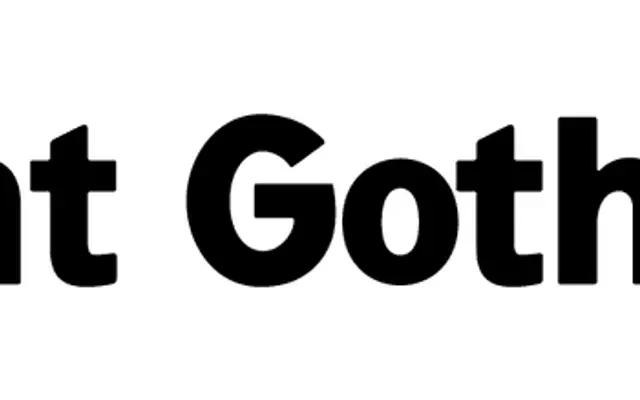
Fairmount Gothic Round
A rounded grotesque drawn from sign painter lettering and mid-century American consumer product design, with uniformly rounded corners on every junction.
Every corner and meeting point across the letterforms has been rounded, eliminating any sharp junction throughout the face. The proportions and weight reference utilitarian mid-century American product typography rather than the narrower craft tradition of sign painting alone. A companion to the standard Fairmount Gothic, this variant leans further into decorative warmth through its consistent rounding.
Rooted in sign painter lettering tradition and mid-century American consumer product design, with uniformly rounded corners throughout; sits between grotesque and display categories due to its decorative rounding and vernacular origins.